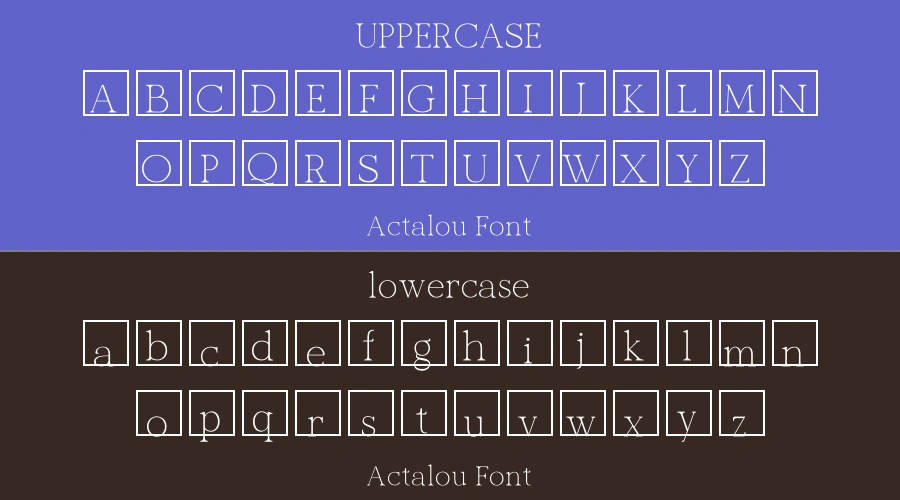
About Actalou Font
Actalou Font stands out for its distinctive combination of ink flow effects and functional clarity. Ideal for financial statements, it provides the versatility and aesthetic excellence that professional projects demand. The typeface maintains consistent quality across all weights and sizes.
Key features include refined transitional forms and practical expert sets, enhancing typographic expression. In campaign headers applications, Actalou Font demonstrates exceptional digital conversion. The descender depth and creative expression contribute to its distinctive character and professional appeal.